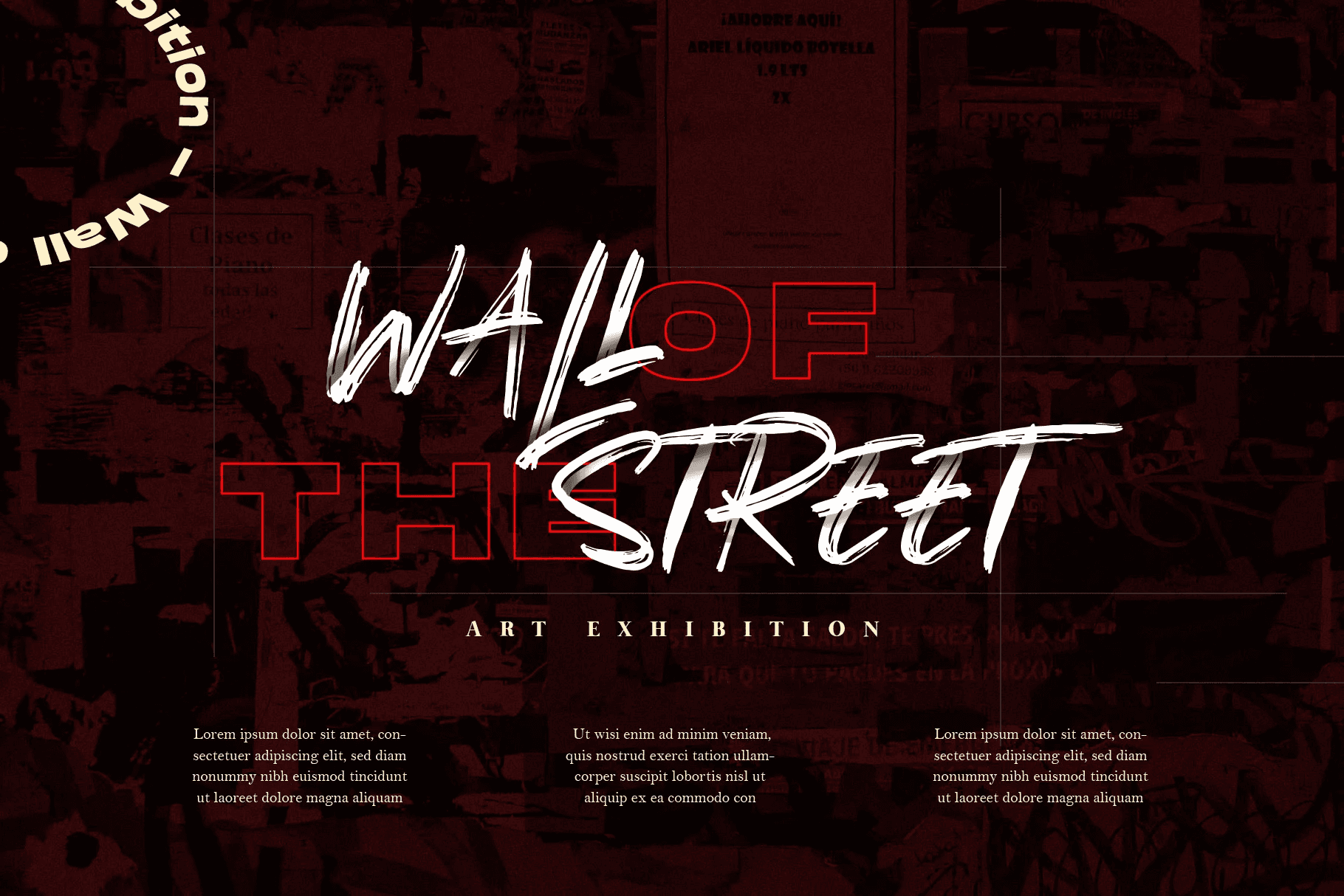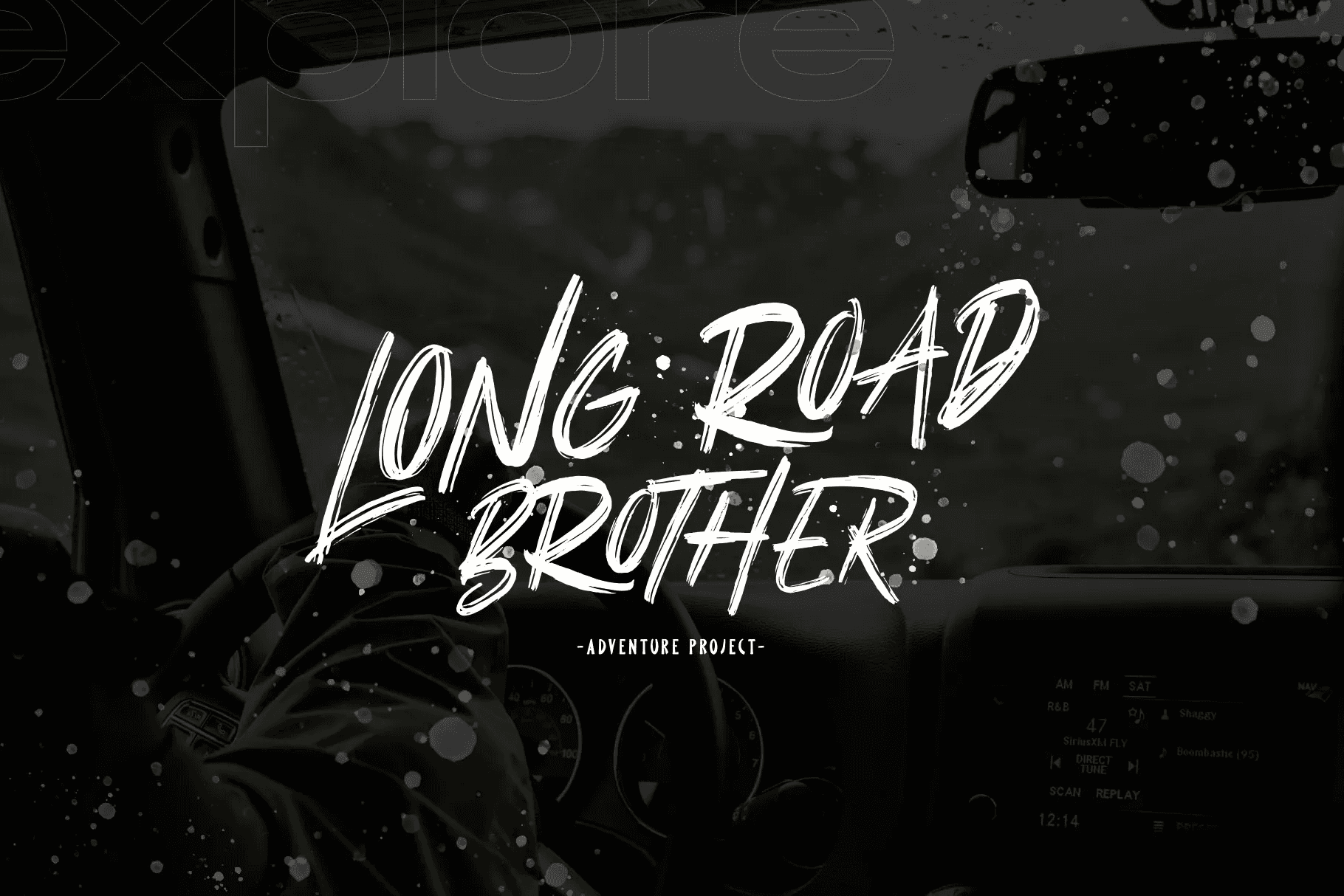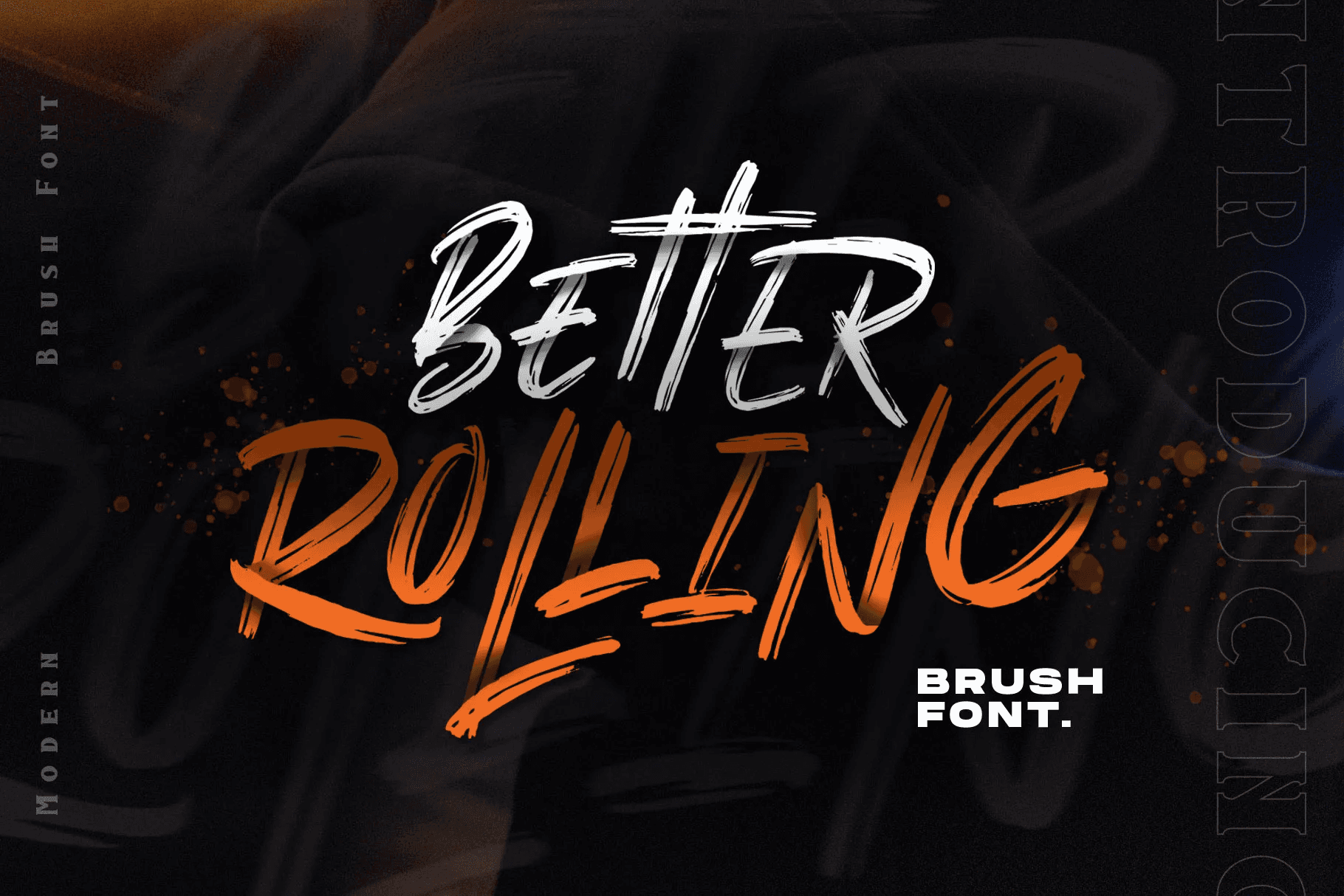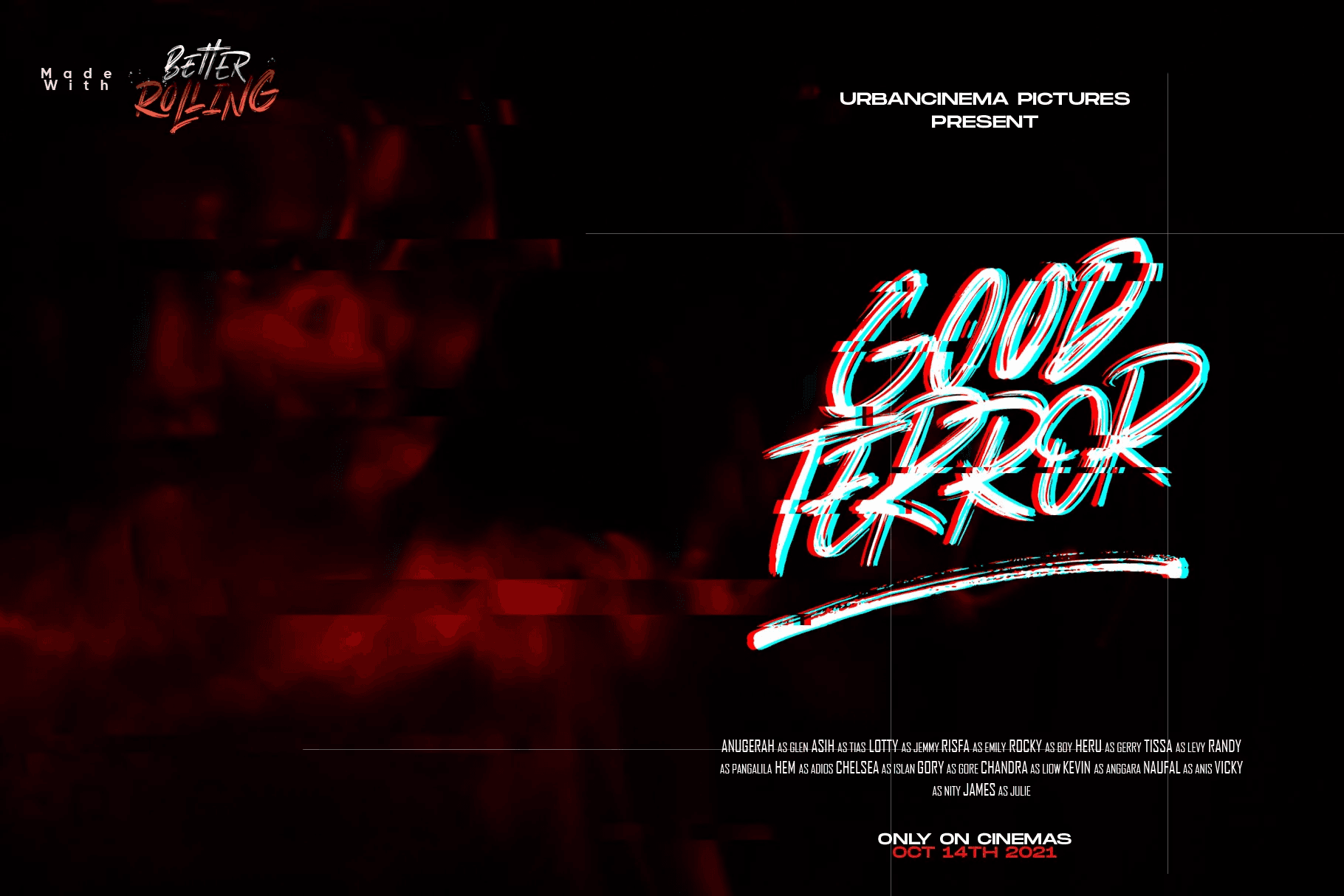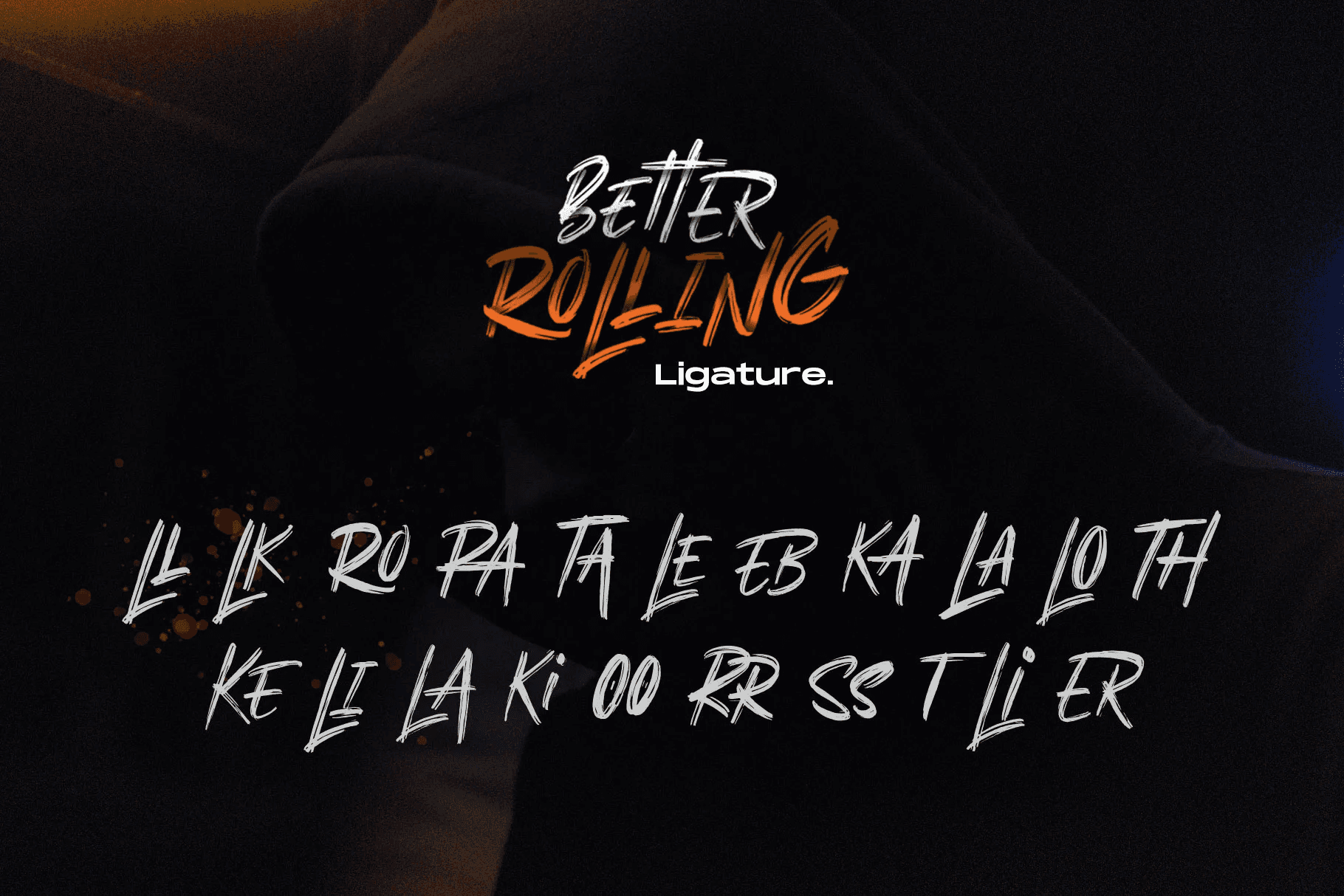
Free Better Rolling Brush Font is an awesome brush font. It is suitable for your projects such as flyers, magazines, book covers, event invitations, gift cards, and more. This free font is available for the TTF format file that you can install and use on your devices. However, this font is coming with a personal use license, but if you want to get more features for this font, you can get the premium version by clicking the Premium Button Below.Thanks to Mas Anis for always sharing his freebie with us. So, if you like this gorgeous font, make sure you share it with your friends. Also, if you want to get more updating freebies from us, you can subscribe to us by filling your email in the blank box below.